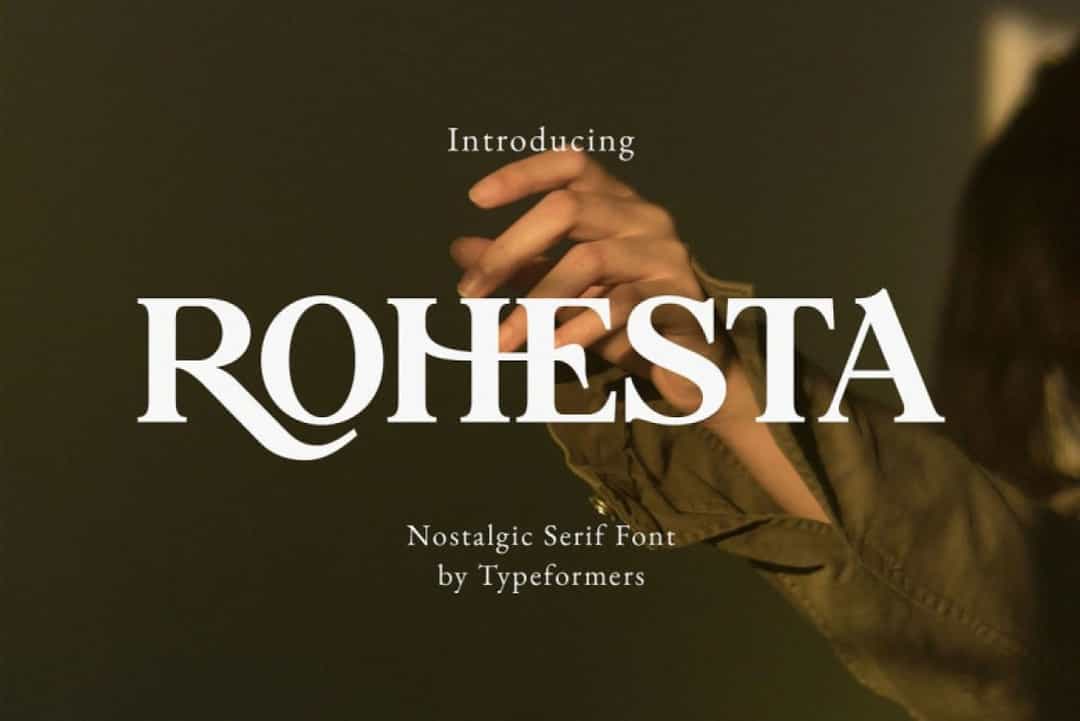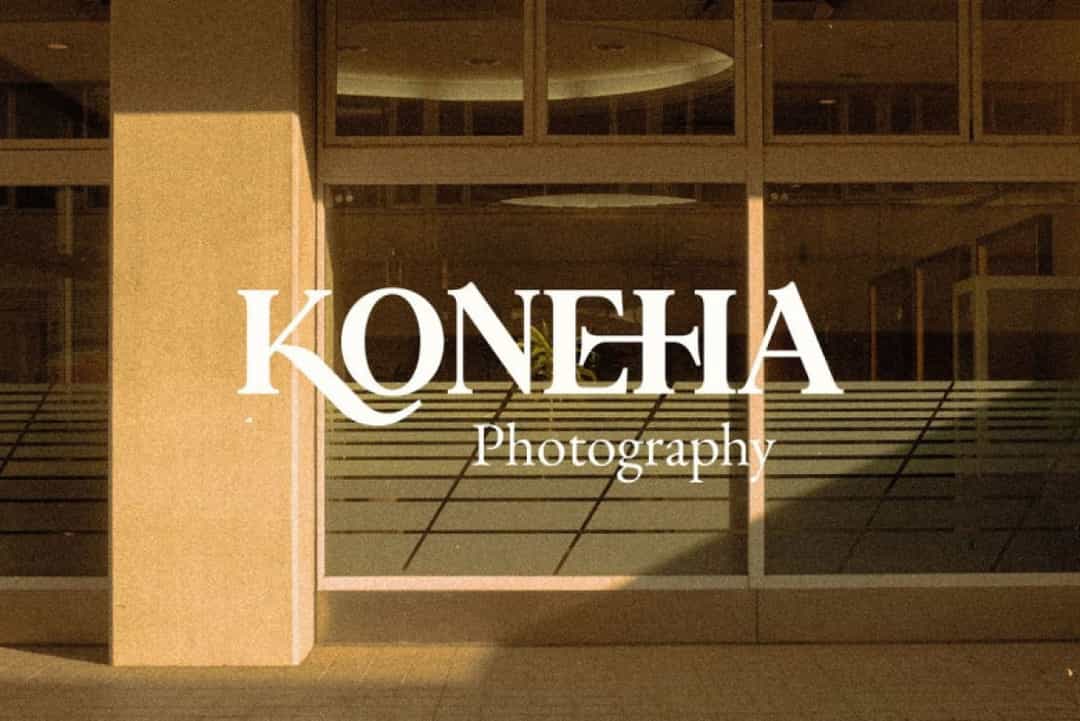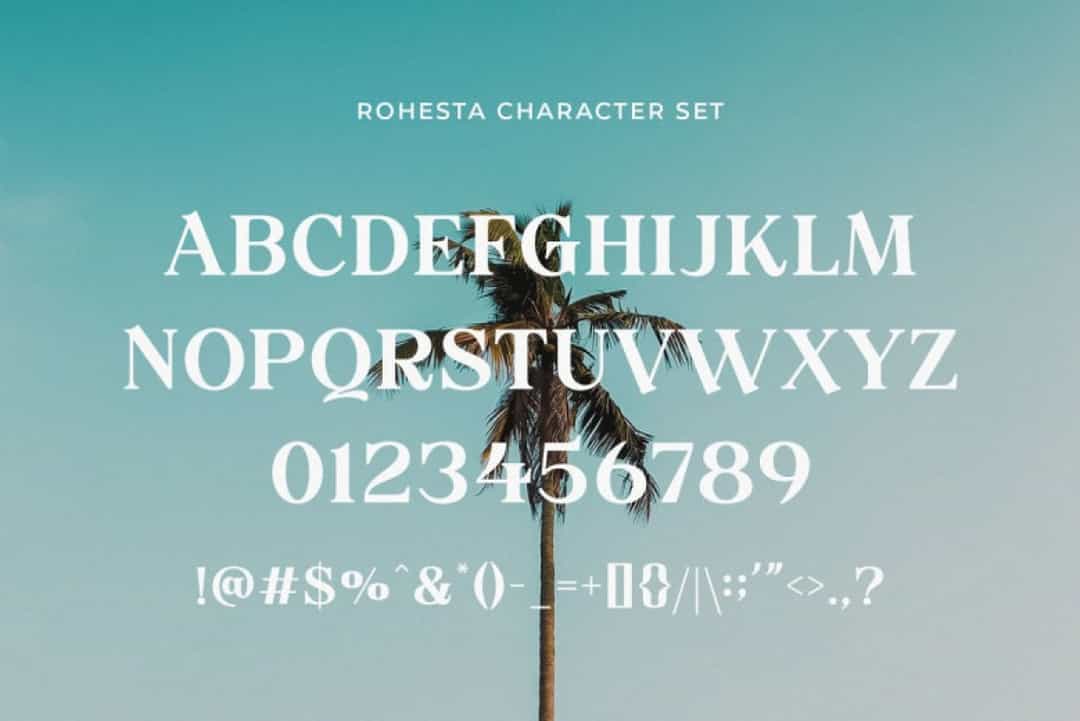
Rohesta is an old-fashioned serif font designed with nostalgia in mind, perfect for use as headers logos branding packaging of products magazines or invitations.